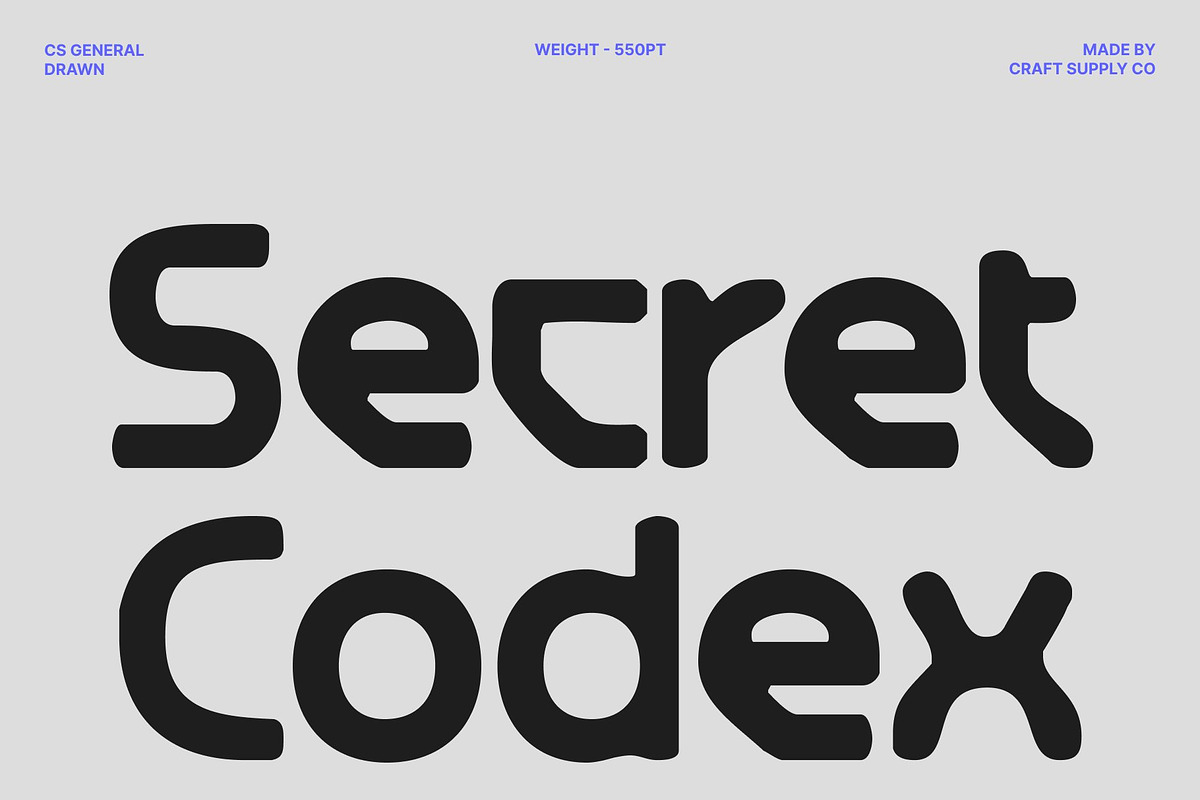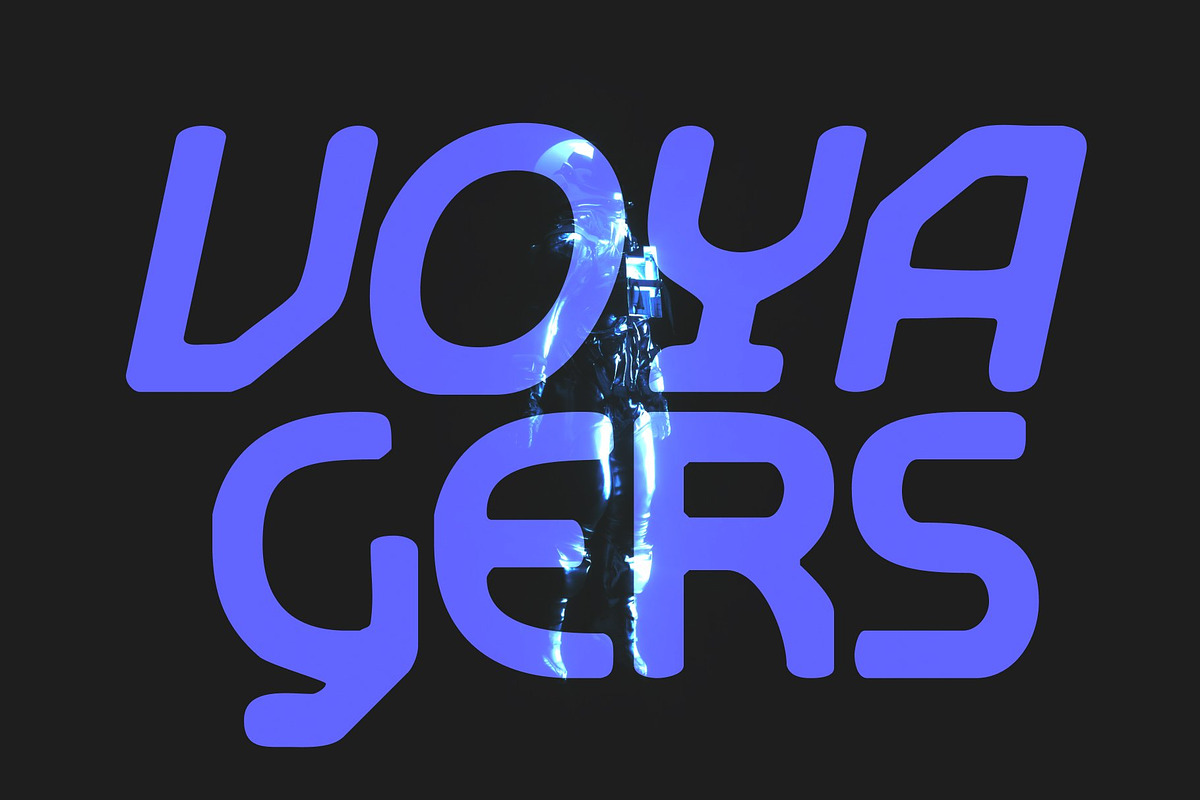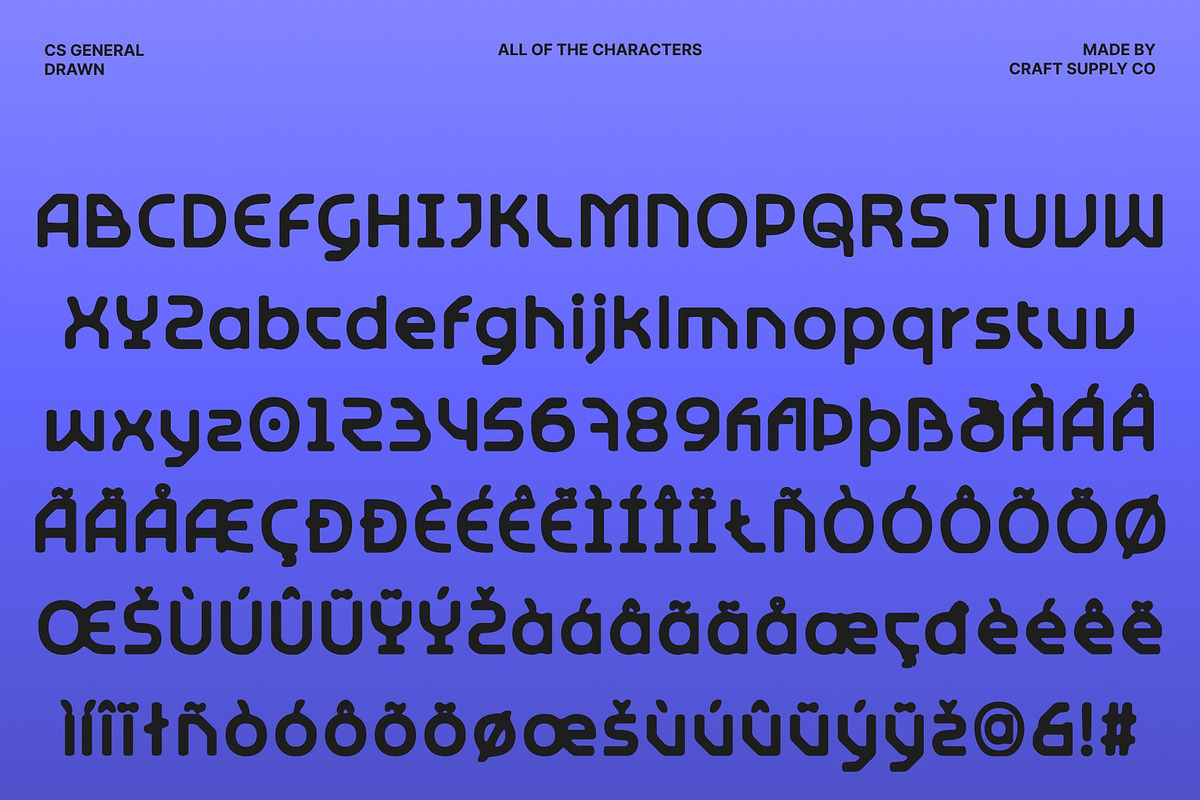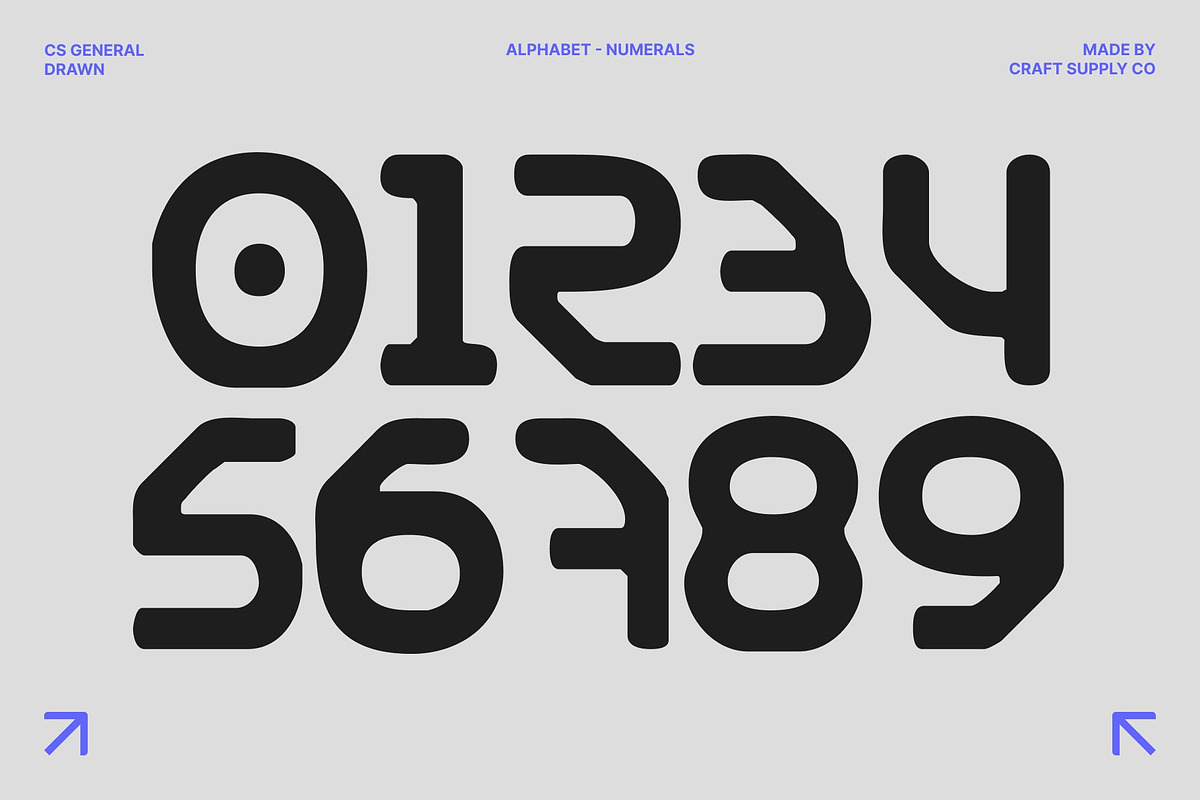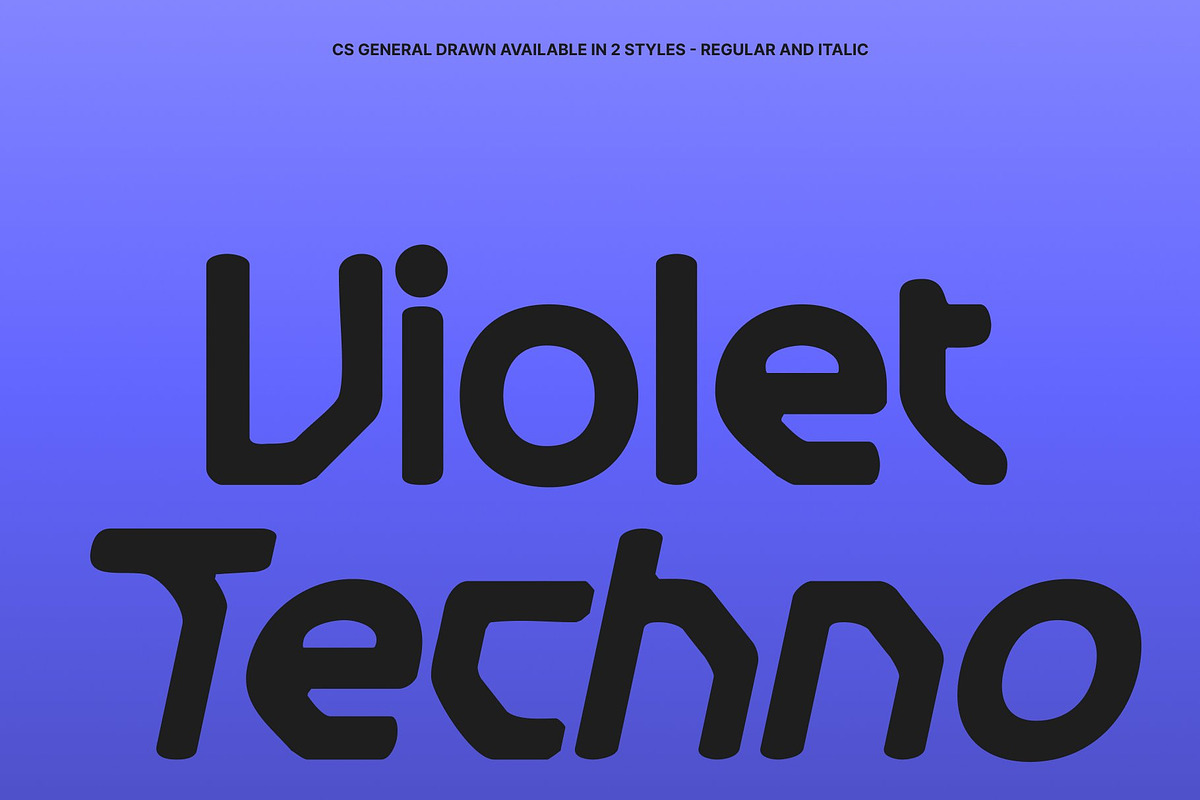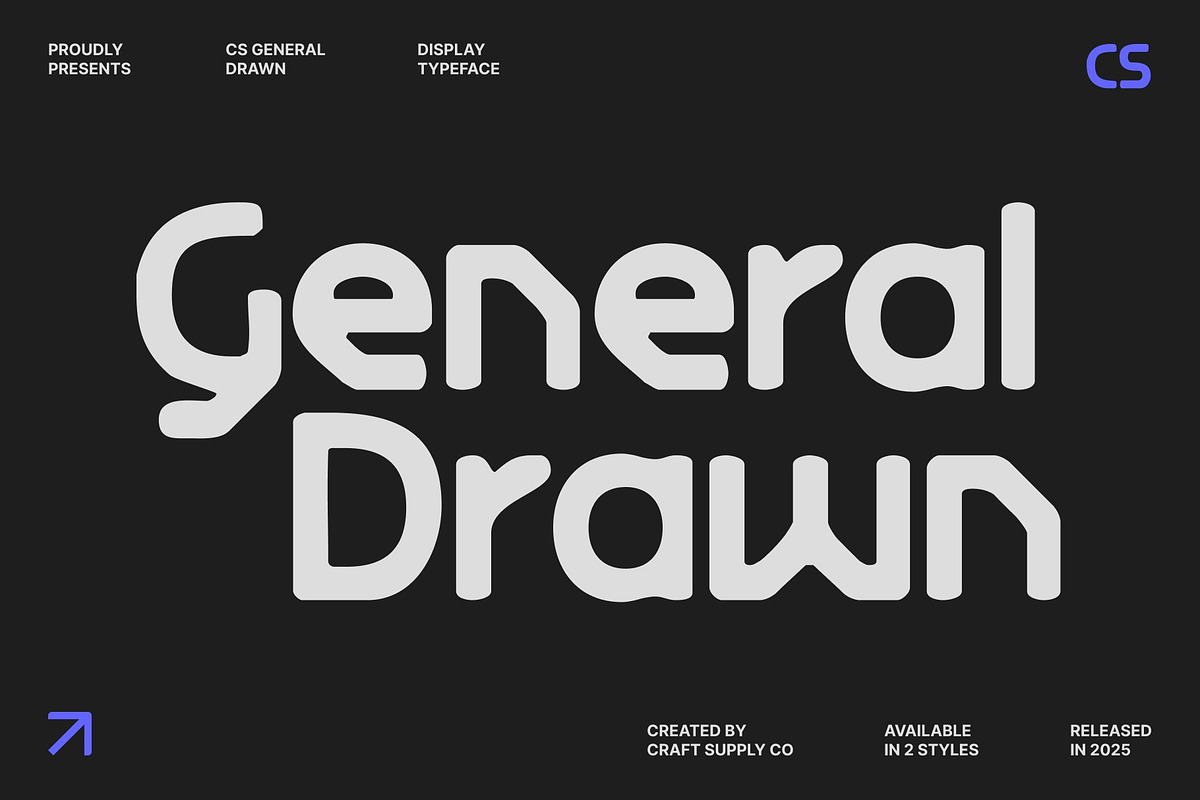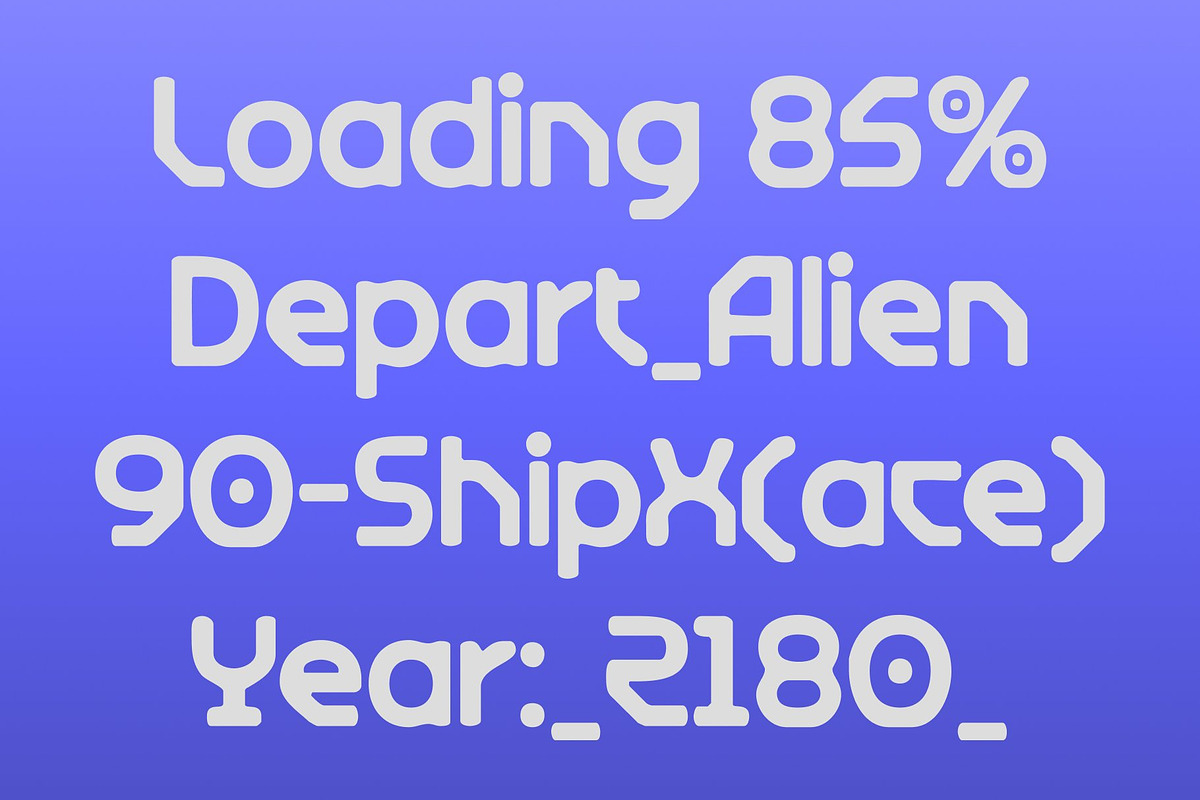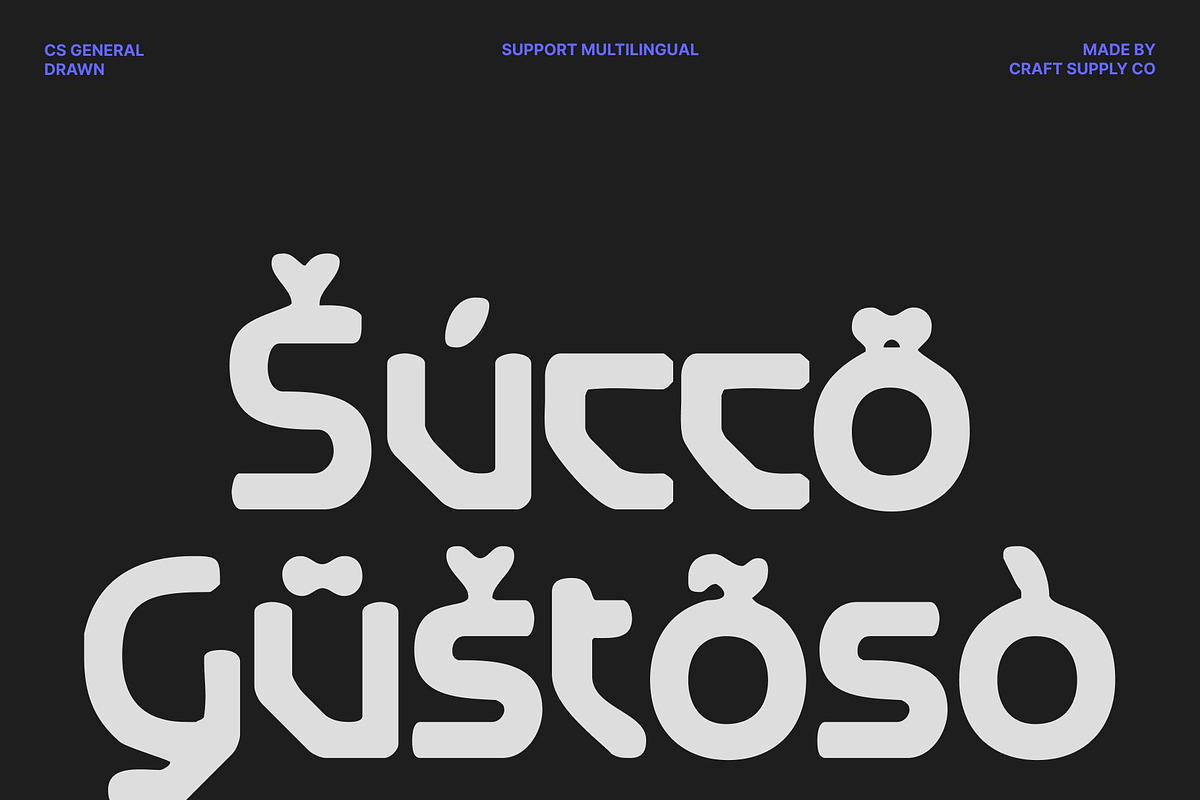
CS General Drawn
CS General Drawn – Futuristic Techno Font with Sharp Geometry
Futuristic Techno Display Font This is a futuristic techno display font designed to convey speed, precision, and digital power. The drawn effect adds an artistic, handcrafted touch to its sharp, angular forms, giving the font a unique, dynamic personality while maintaining a sleek, high-tech aesthetic. Its bold, modern look is perfect for projects that demand innovation, intensity, and a forward-looking visual identity.
Sharp Edges with Geometric Precision Each character is constructed from clean geometric shapes combined with crisp, angular edges. This precise construction creates a mechanical rhythm and strong visual clarity, while the drawn effect adds energy and individuality, making the font instantly recognizable in display applications.
Tech-Driven Style for Digital Themes This font excels in technology-focused and cyber-inspired designs. It’s ideal for video game titles, sci-fi visuals, cyber interfaces, and digital environments, communicating advanced systems, futuristic concepts, and virtual-world aesthetics with confidence.
Versatile for Entertainment and Branding Use Designed for both impact and flexibility, this font performs exceptionally across a wide range of creative applications. From movie titles and promotional posters to gaming logos and UI headers, it maintains readability while projecting a strong, tech-forward presence.